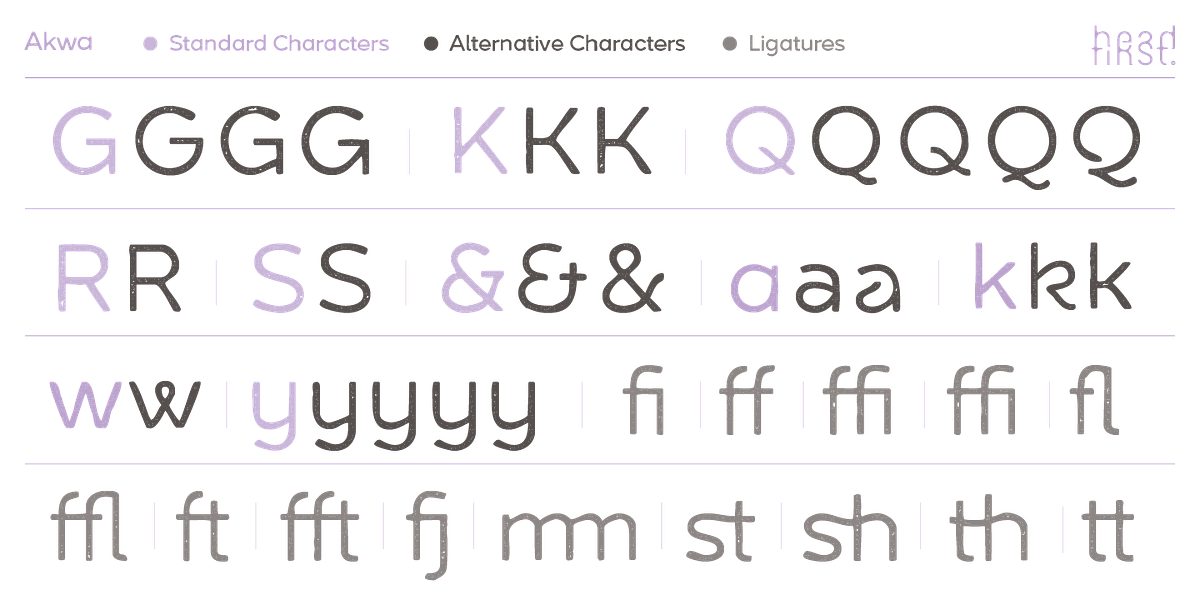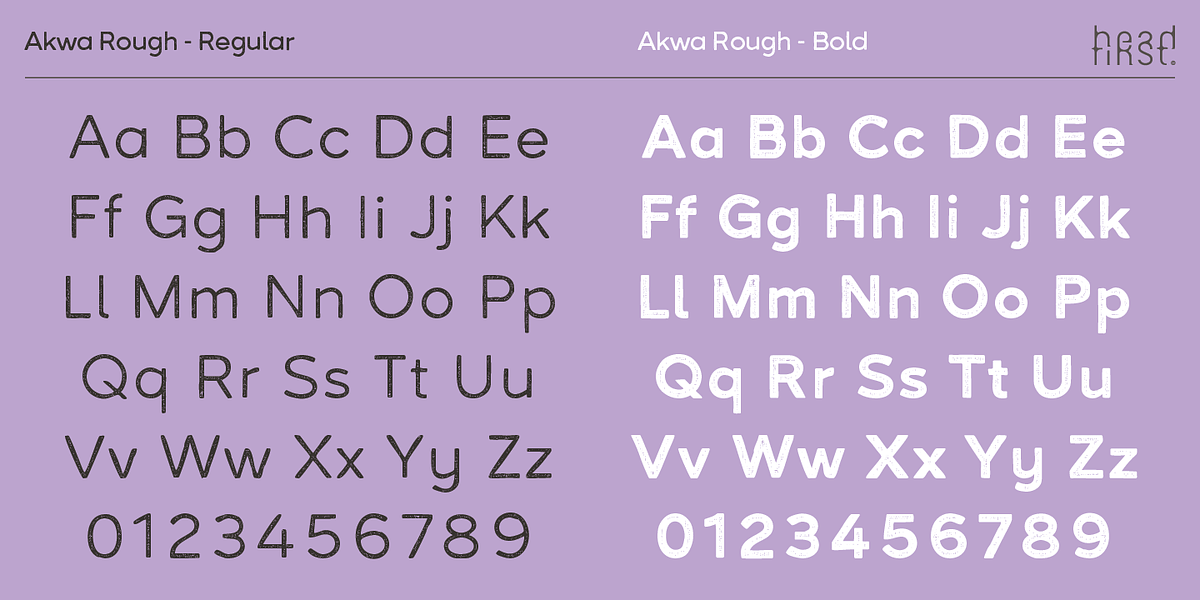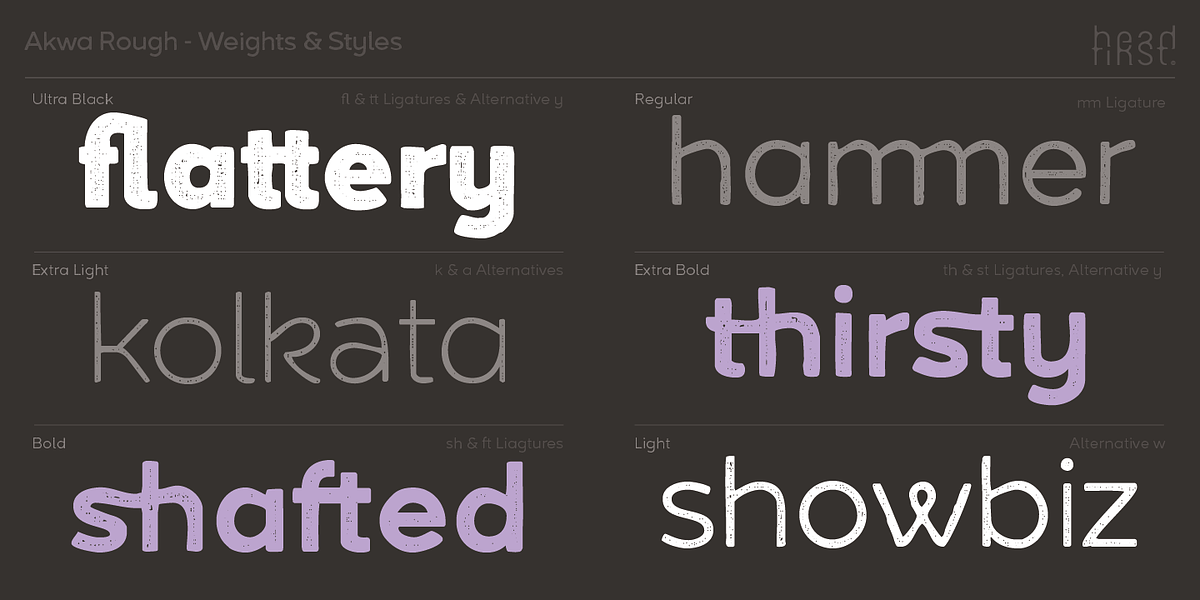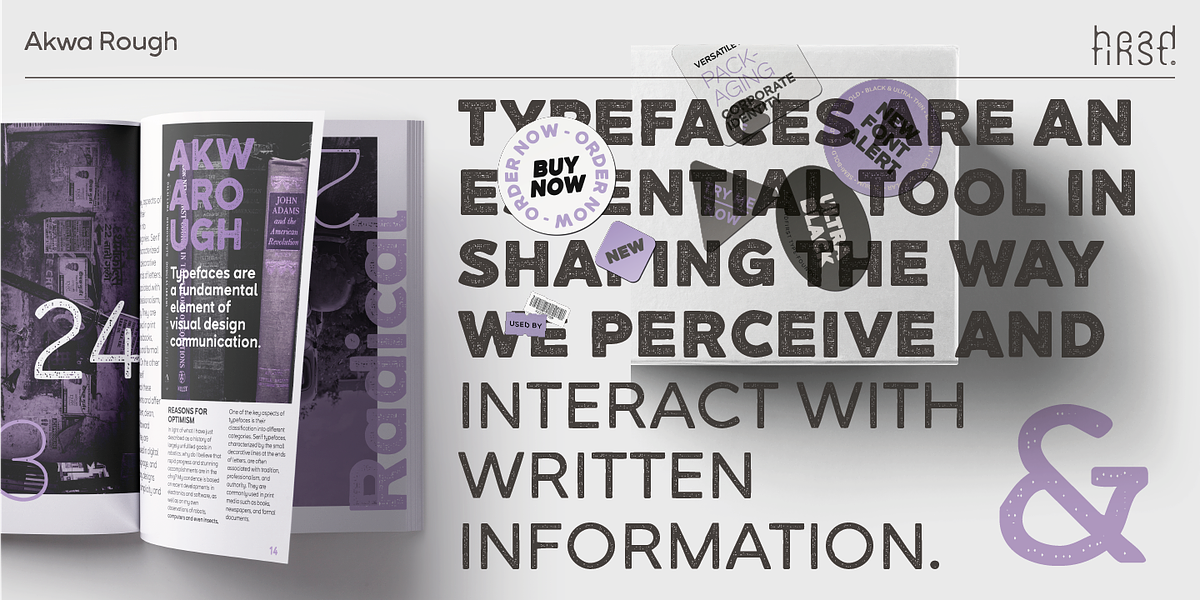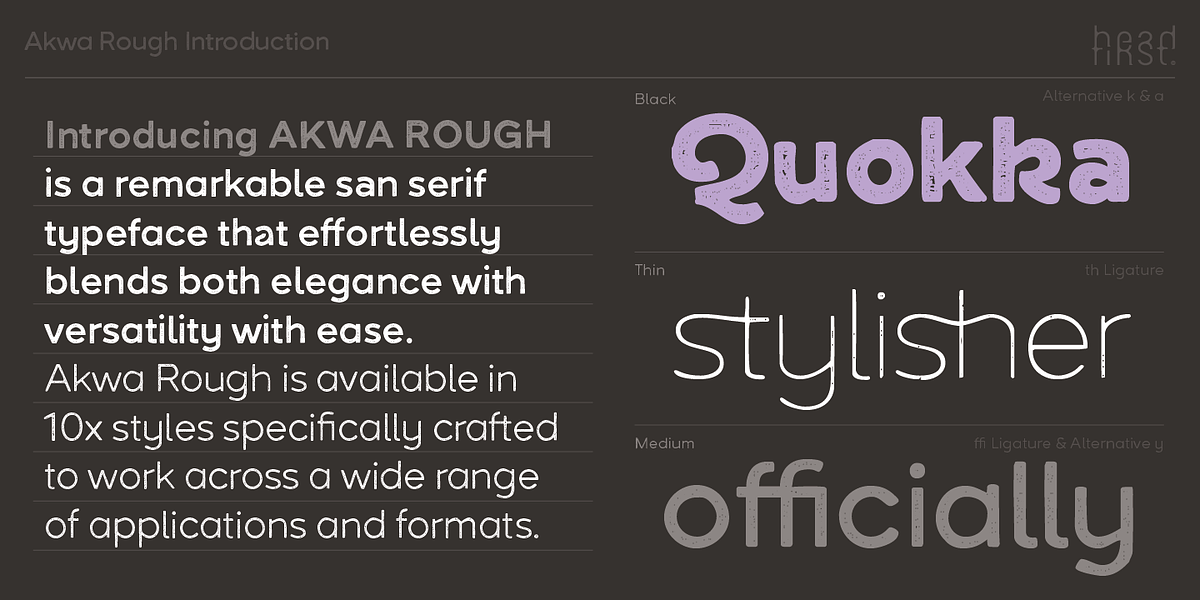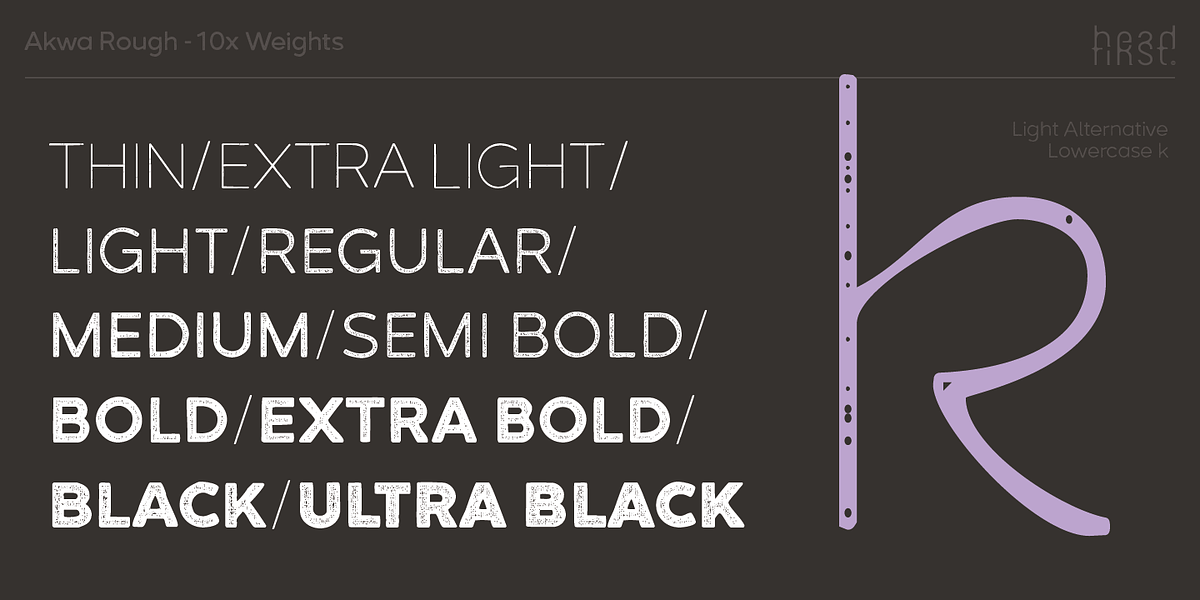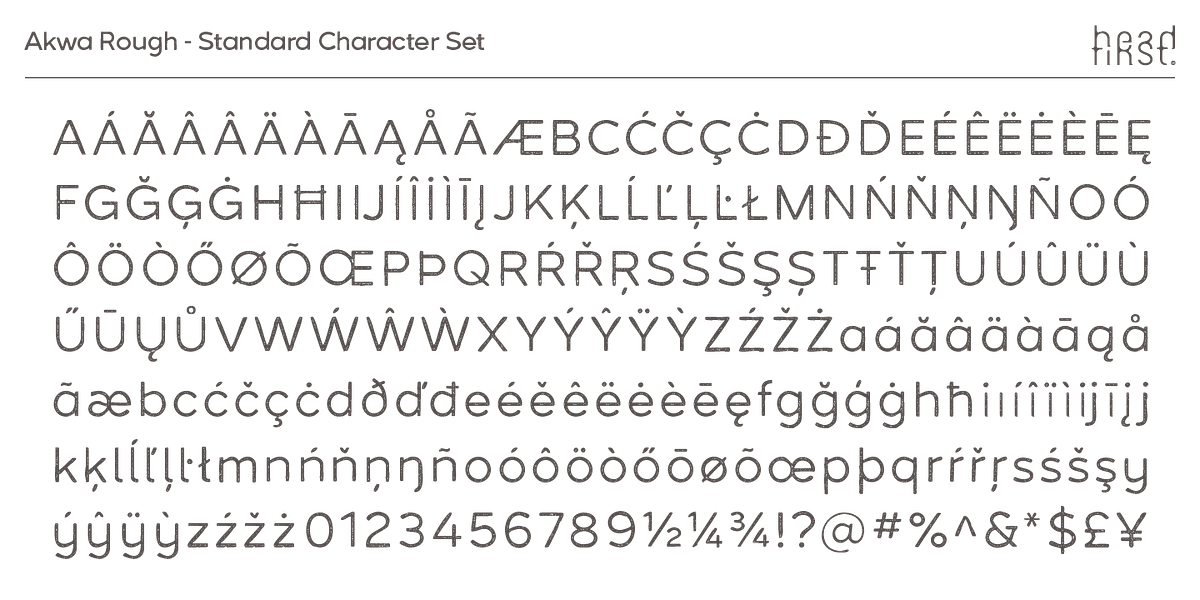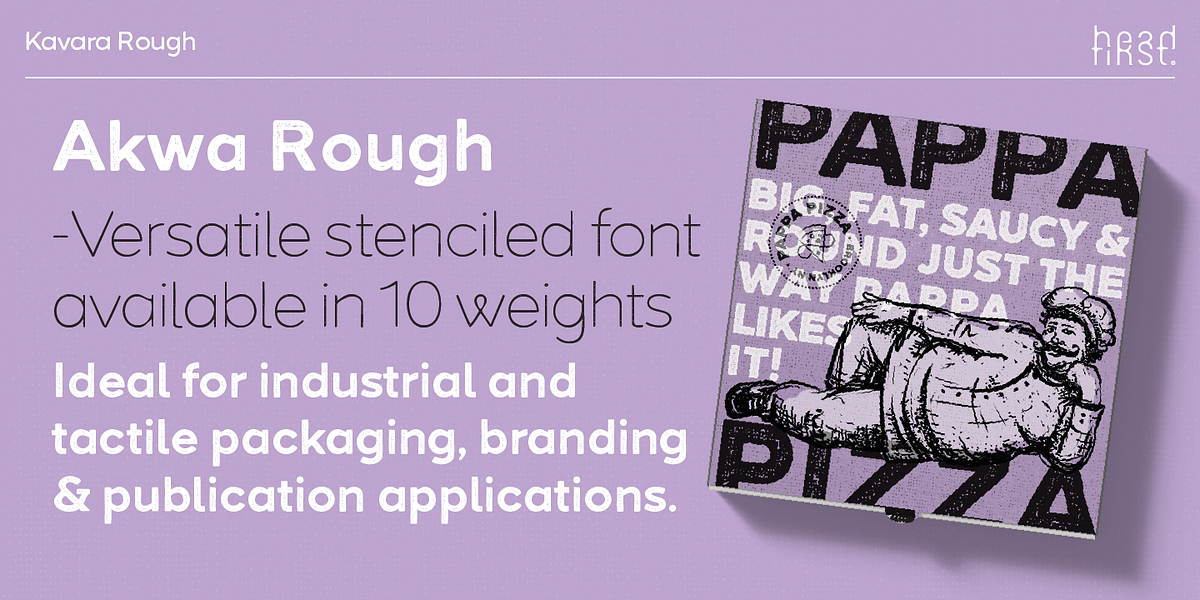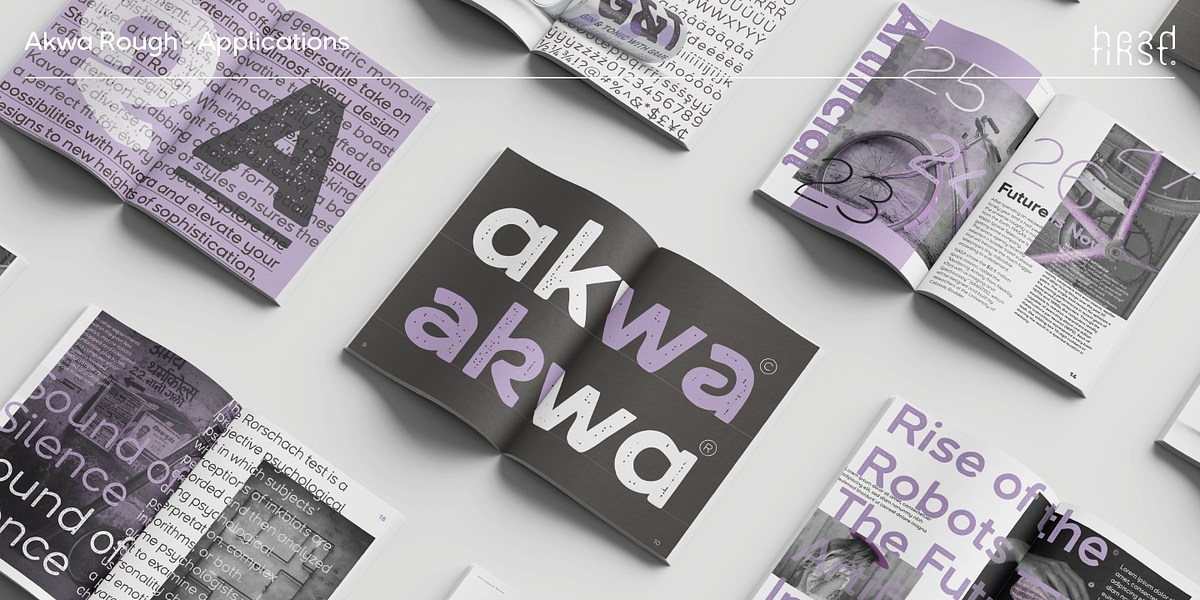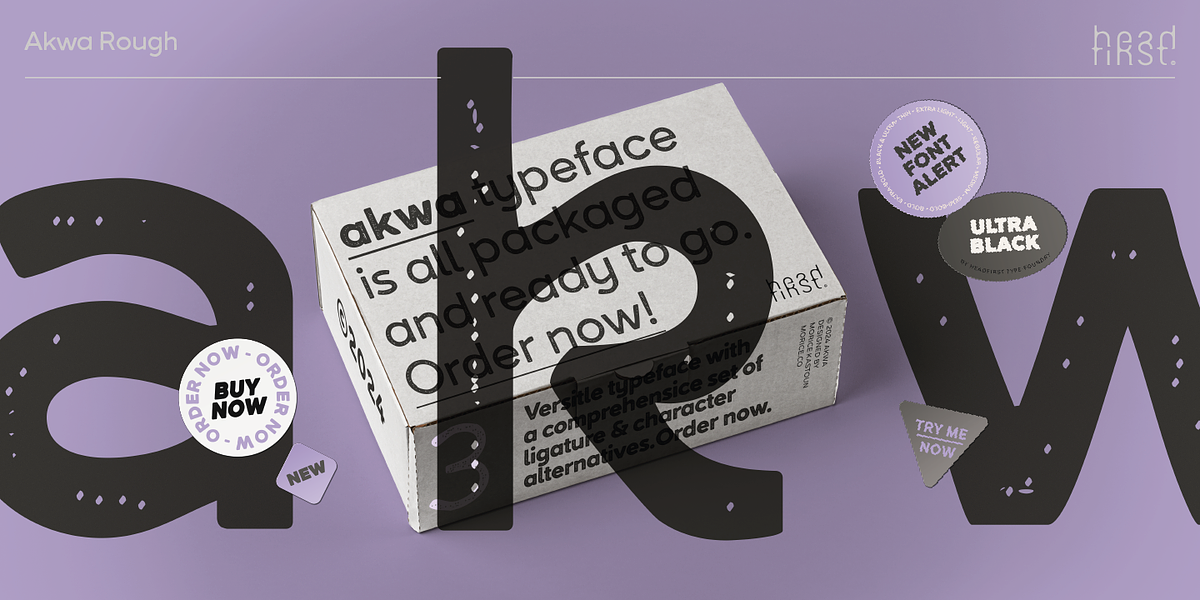
Akwa Rough
Akwa Rough is a modern geometric sans-serif typeface characterized by its elegant and versatile nature. Its design draws inspiration from timeless geometric shapes, resulting in a font with refined functionality and beauty. The low contrast between thick and thin strokes lends Akwa a distinctive aesthetic suitable for branding, headlines, and display purposes.